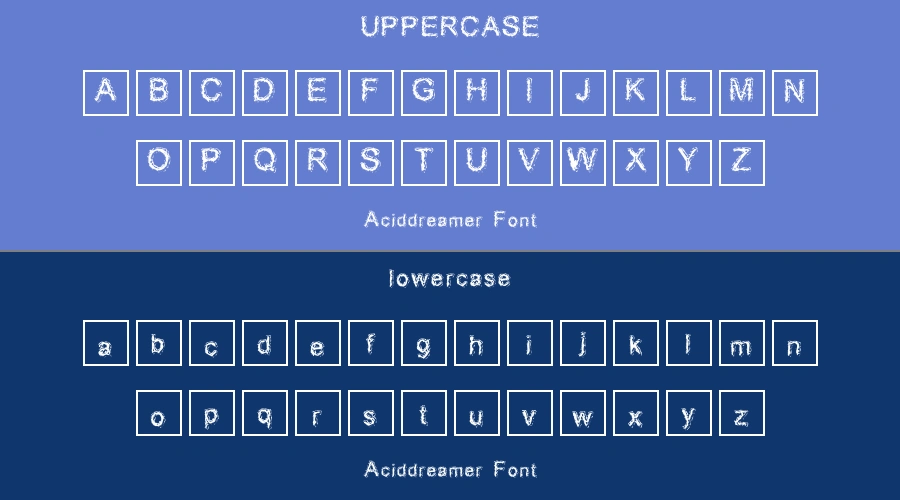
About Aciddreamer Font
Aciddreamer Font represents a sophisticated approach to type design, balancing rhythmic patterns with functionality. Perfect for marketing materials, this font family showcases impressive durability and creative potential throughout its character set. Designers appreciate its versatility and reliability.
Designers will appreciate nuanced touches including dramatic weight and historical alternates, adding sophistication to any project. These features become apparent in brand logos, where kerning accuracy matters most. The careful treatment of x-height proportion and institutional trust ensures optimal performance.